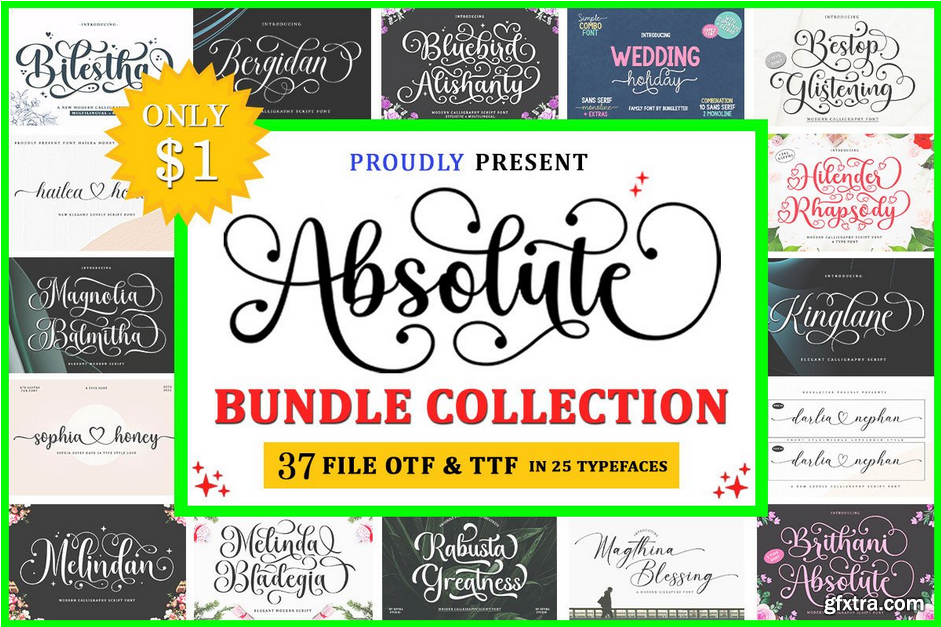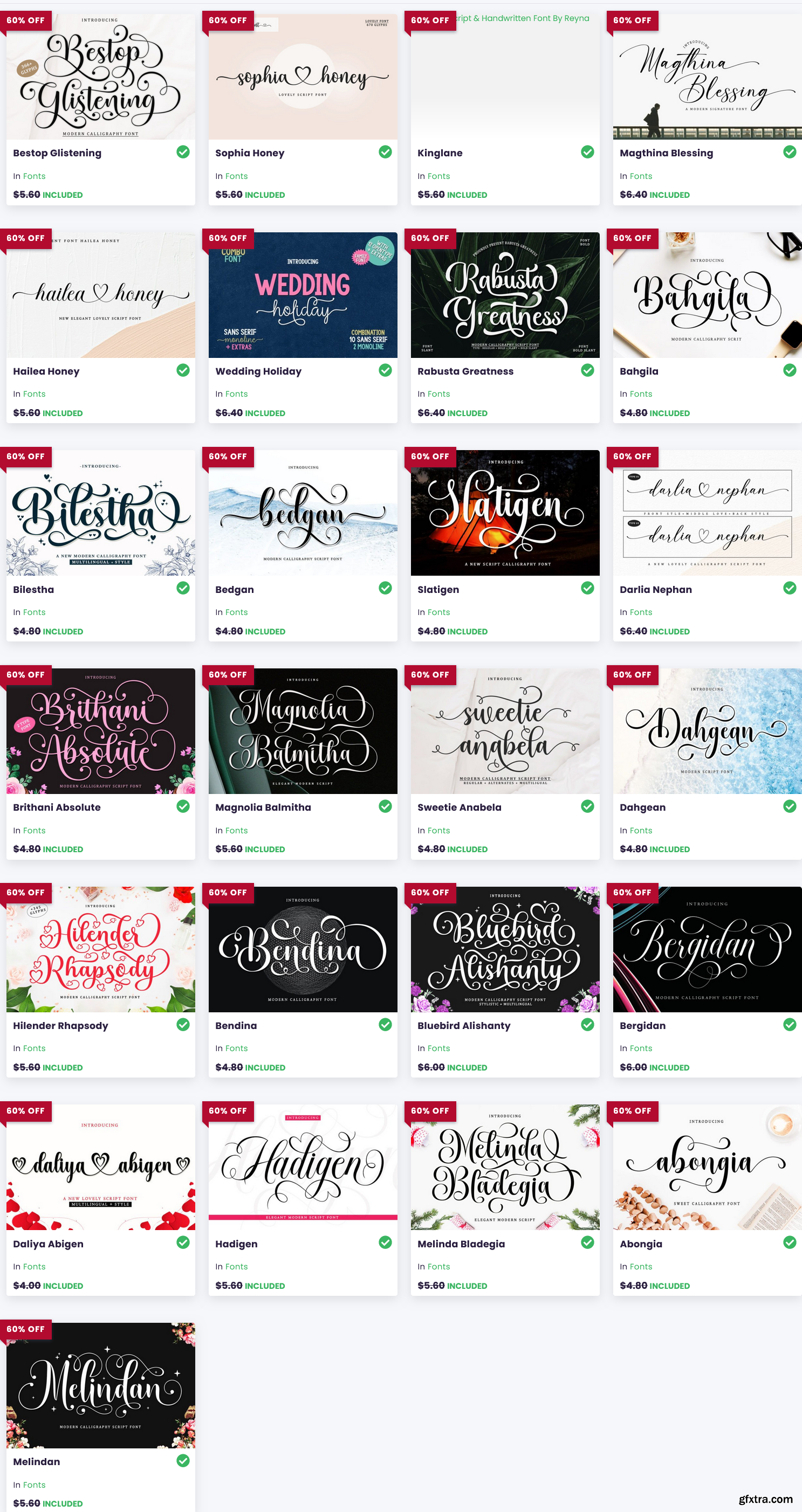
Absolute Font Collection
This pack is perfect for greeting cards, branding, business cards, quotes, posters, stickers, blogs, logos, weddings, signage, packaging, birth announcements, photo overlays, wall art, quotes, printed materials, bags, t-shirts, and much much more!
This bundle includes various font styles such as Script Fonts, Calligraphy, Modern, Elegant, and many more. with hundreds of glyphs, including alternatives, straps, slashes, and international language support.